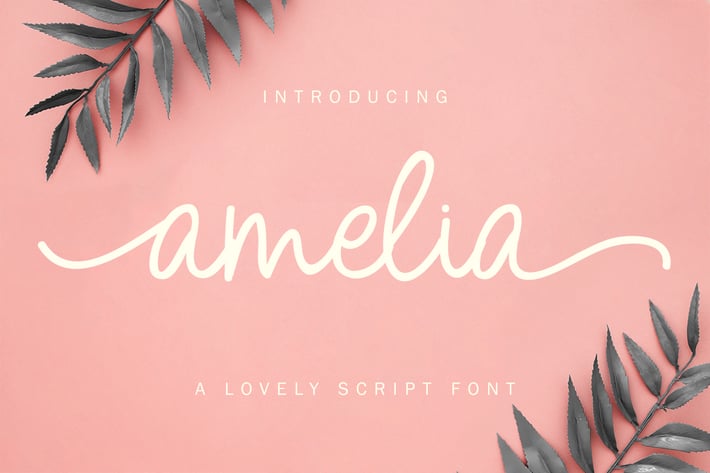
Amelia - Monoline Font
Amelia is a beautiful monoline font.
This font is suitable for any design like branding, quotes, t-shirt printing and etc.
- Accents (Multilingual characters)
- 52 Beautiful Stylistic
- Numerals and Punctuations (OpenType Standard)